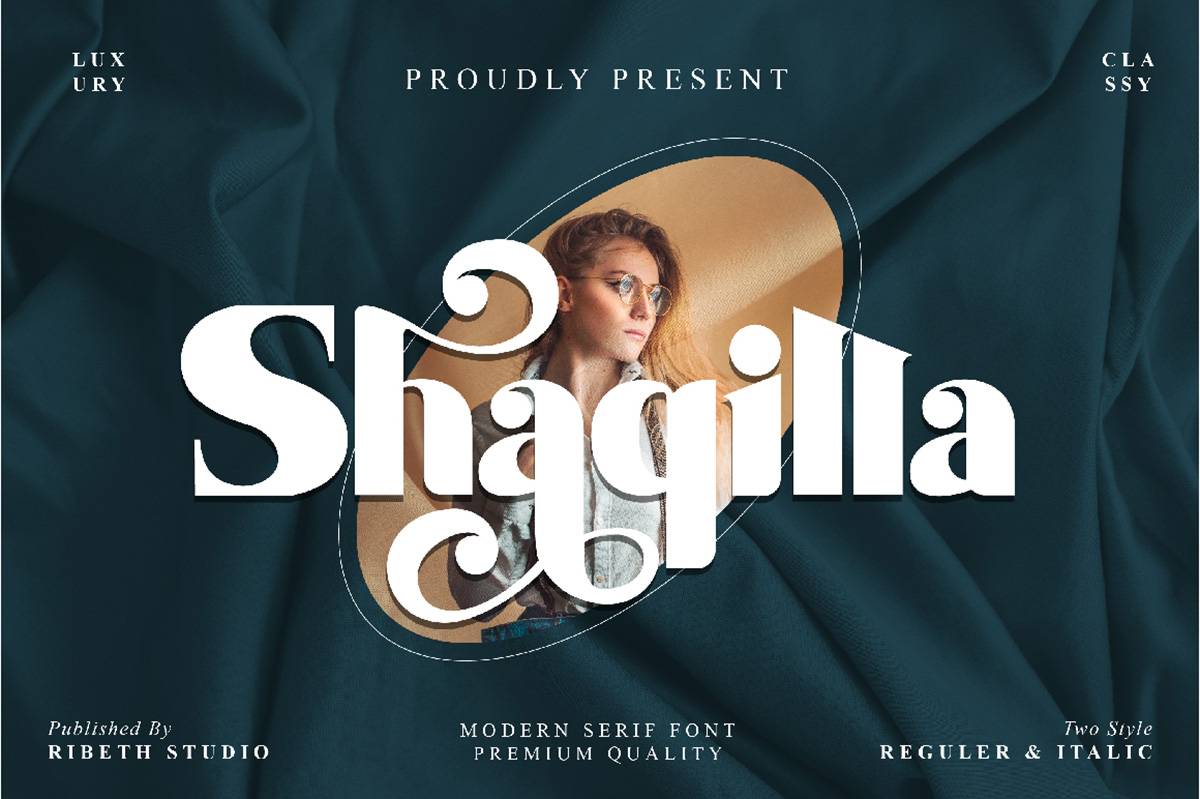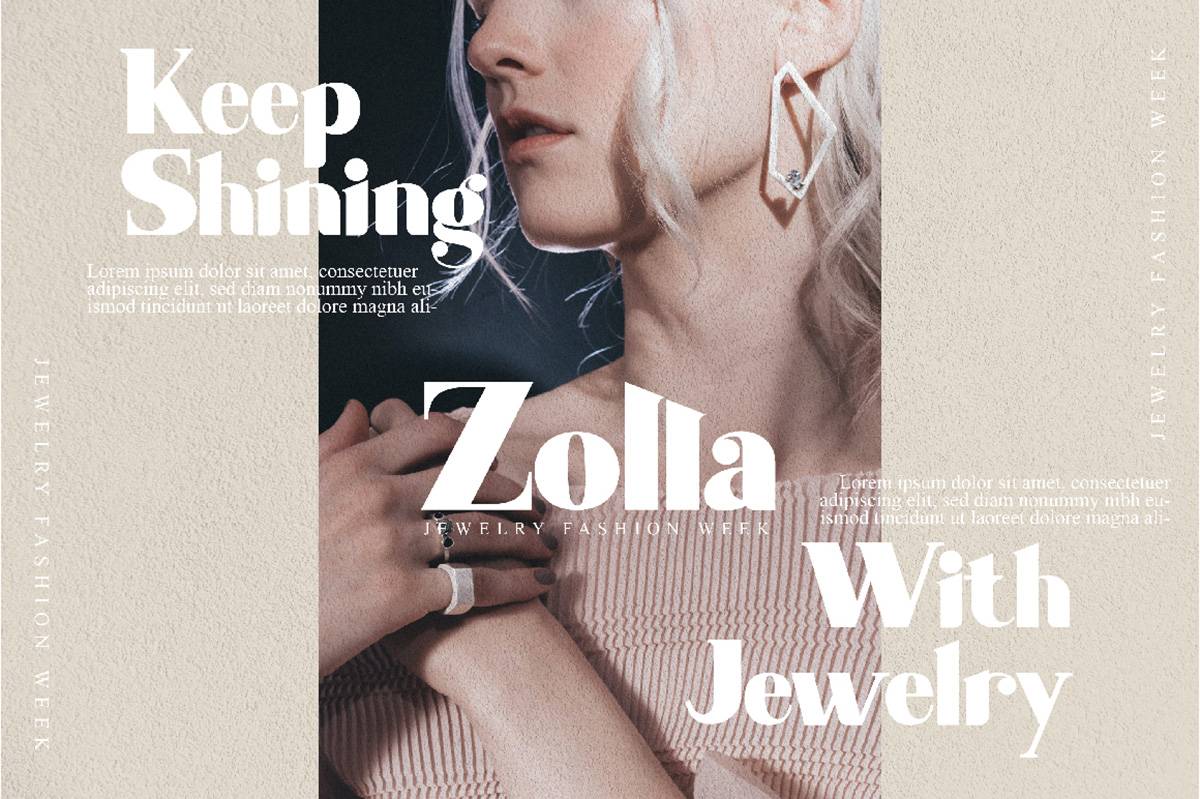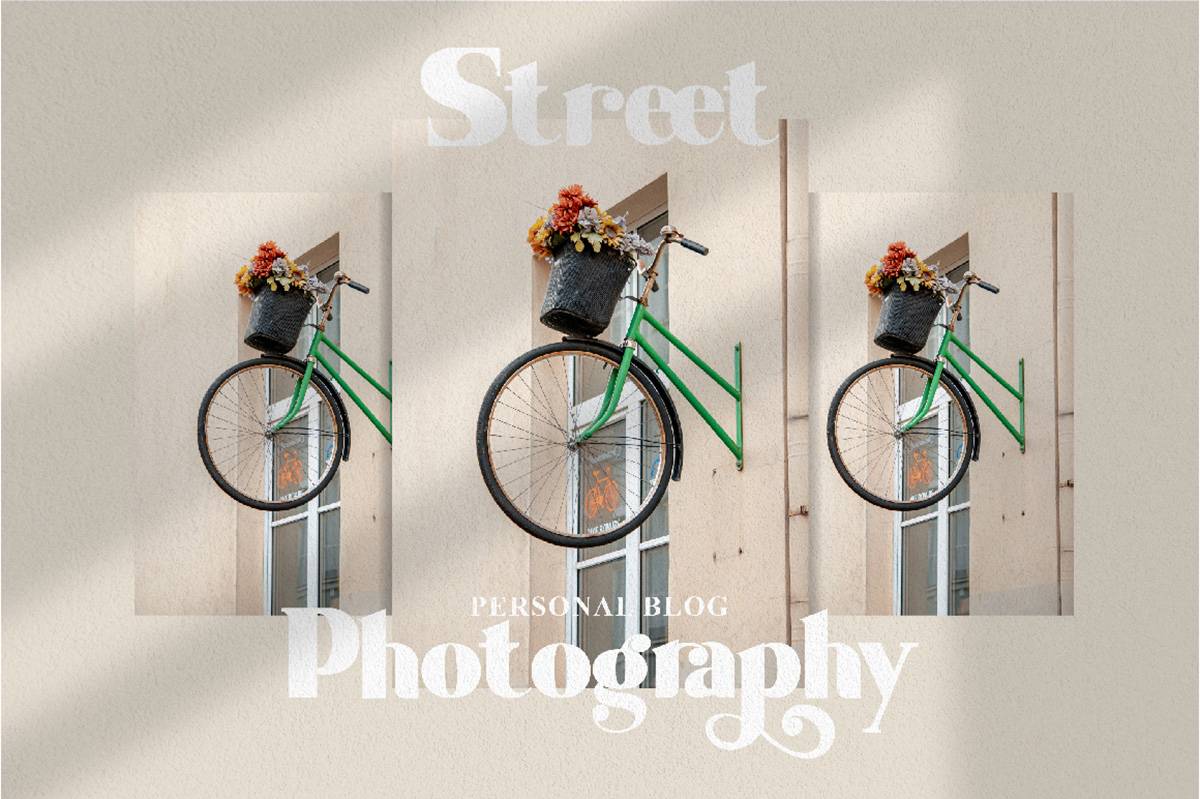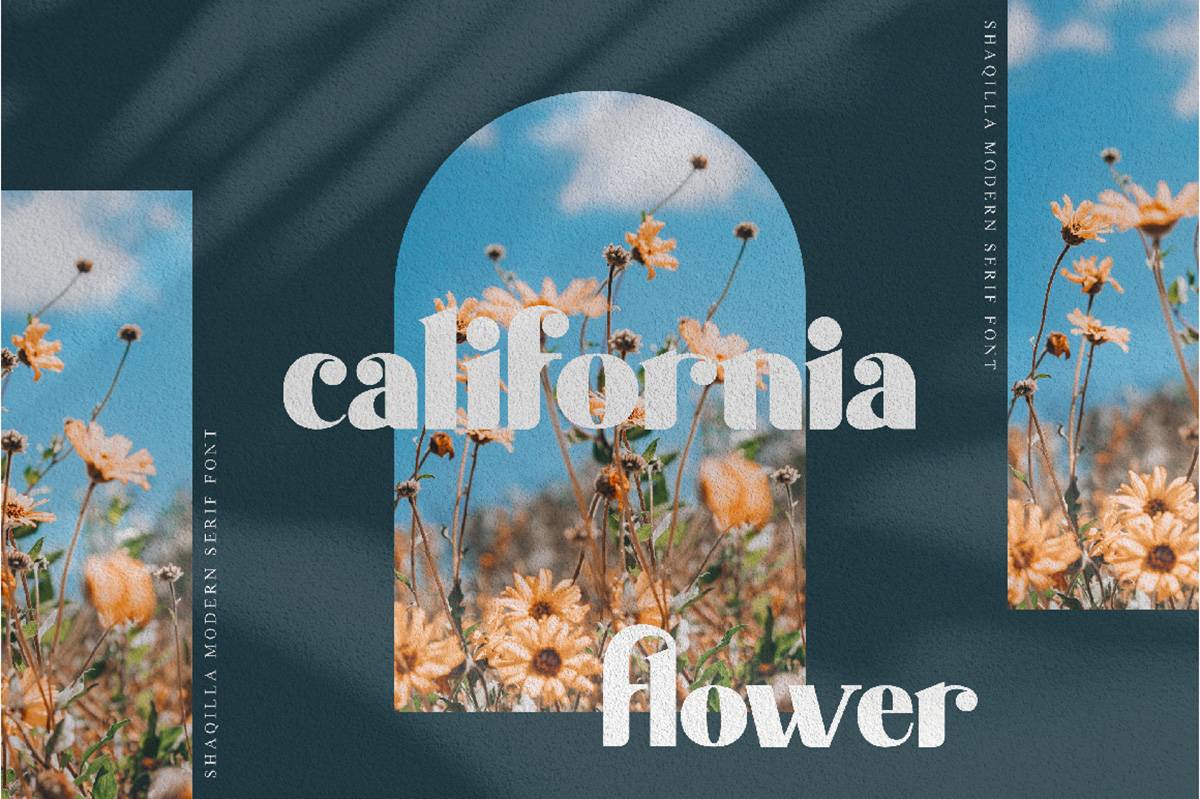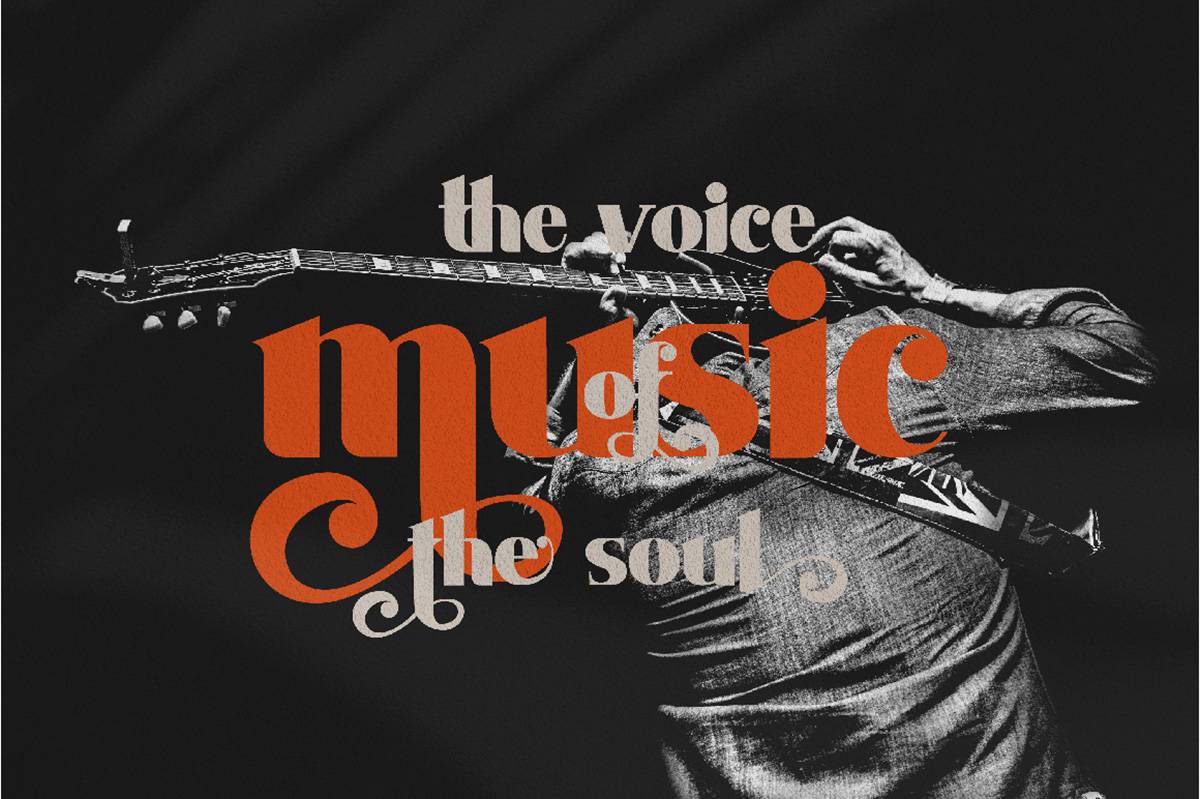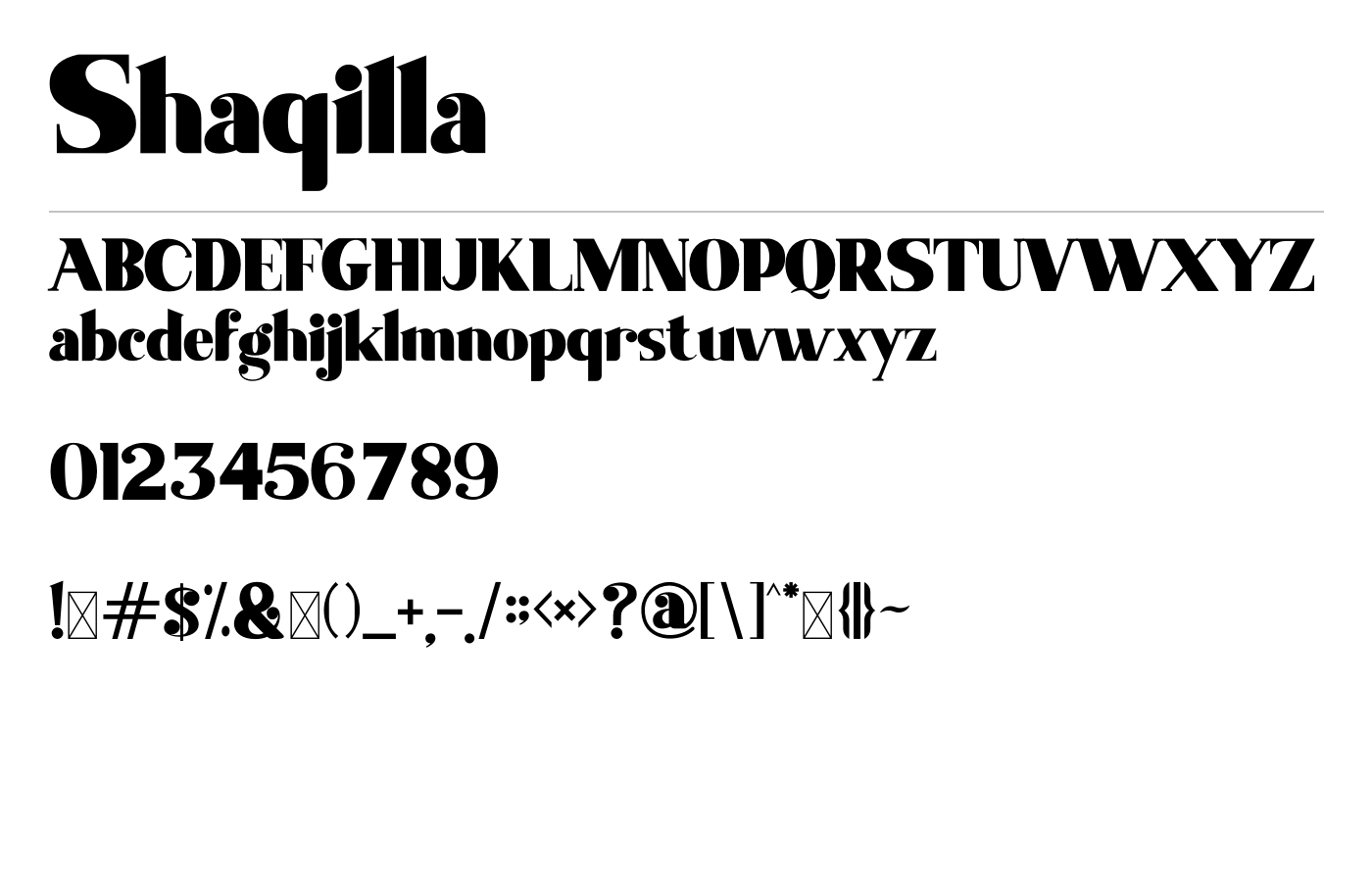
Shaqilla is a bold serif font with a strong presence, featuring high contrast between thick and thin strokes and sharp, bracketed serifs that give it a classic yet commanding look. Its unique letterforms, like the single-story lowercase "a" and distinctive ampersand, combined with a sturdy, slightly condensed width, make it perfect for headlines, logos, and editorial design where a blend of elegance and authority is desired. This font works well in luxury branding and sophisticated print projects, adding a touch of vintage charm while maintaining modern impact.
Shaqilla Font
About Shaqilla Font
| Font family | Shaqilla Font |
| Designer | Ribeth Studio |